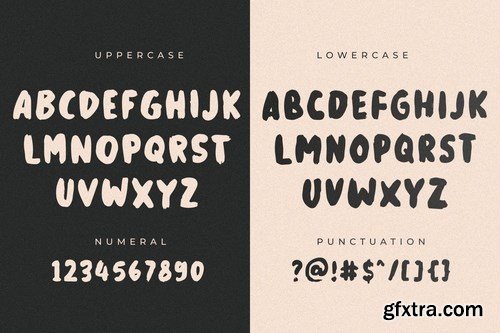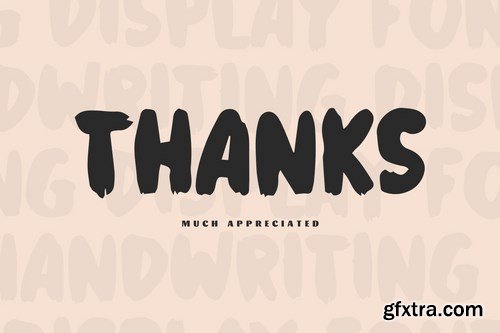
Chords - The Handwriting Display Font
Chords - The Handwriting Display Font. It comes with a brush texture style which is perfect to make any design stand out! This font is perfect for branding, wedding invites, magazines, mugs, business cards, quotes, posters, and more.